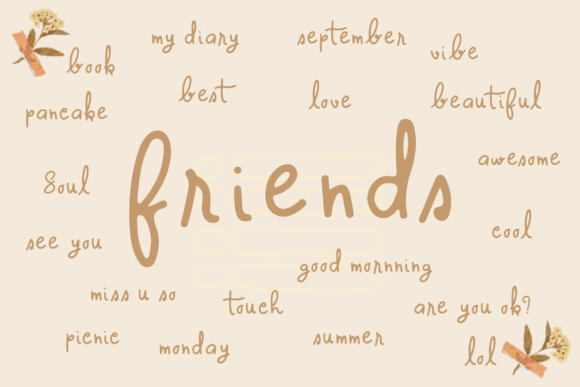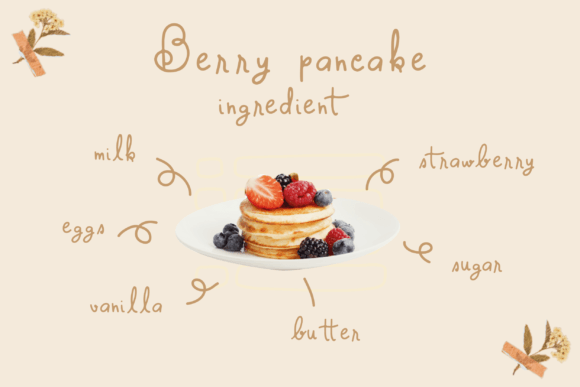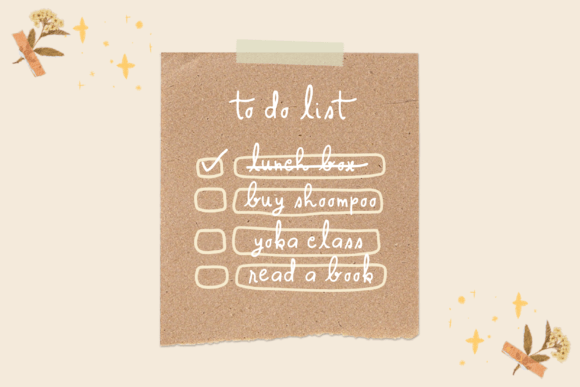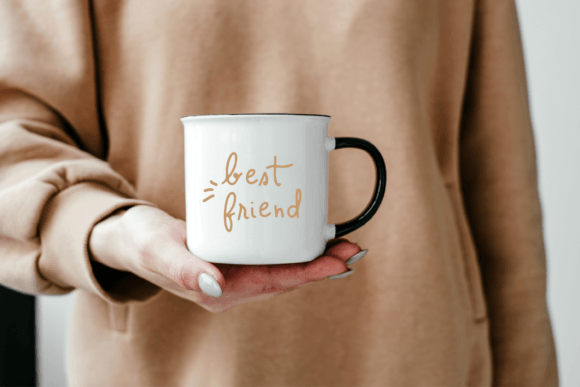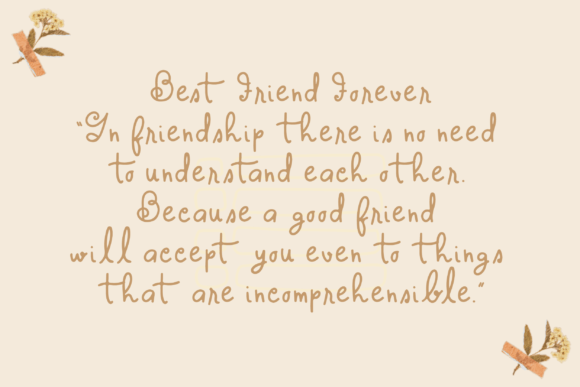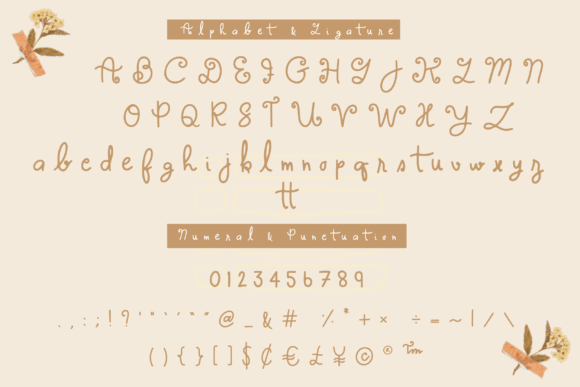
The Ultimate Guide to Friends Font: Adding a Touch of Warmth to Your Designs
I’ll never forget the time I was working on a project for a client’s children’s party invitations. I had all the design elements in place – the colors, the graphics, the overall aesthetic – but something was missing. The font I was using just wasn’t capturing the playful, friendly vibe I was going for. That’s when I stumbled upon the Friends font, and it was love at first sight! ✨
With its irregular letterforms, varied stroke widths, and playful designs, Friends font instantly evoked a sense of friendship and warmth. It was exactly what I needed to bring the party to life – and it’s been a staple in my design toolkit ever since.
An Honest Review of Friends Font
- ✨ Unique, handwritten style that’s perfect for creative projects
- ✅ Irregular letterforms and varied stroke widths add a touch of whimsy
- 🎉 Playful designs that capture the spirit of fun and friendship
- 💻 Works beautifully for both digital and print projects
While Friends font is an amazing addition to any design project, there are a few things to keep in mind: ⚠️
- 🤔 Some letters may be a bit tricky to read at smaller sizes – best used at larger sizes or for headlines
- ⚠️ Limited availability of special characters and glyphs (but still offers a range of OpenType features)
One of the best things about Friends font is its range of OpenType features, glyphs, and stylistic alternates. These allow you to customize your text and add even more personality to your designs:
- Access alternate characters, ligatures, and swashes to add flair
- Experiment with different stylistic sets to change the overall look
- Use glyphs to add icons, symbols, and other special characters
The Backstory of Friends Font
While the origins of Friends font are shrouded in mystery, it’s easy to imagine a designer creating this font with a group of friends in mind – laughing, brainstorming, and experimenting with letterforms until something magical happened. 💡
Perhaps the designer was inspired by the joy of handwritten notes, the imperfections of childhood scribbles, or the spontaneity of street art. Whatever the inspiration, Friends font captures the essence of friendship and fun in a way that’s hard to resist.
Q: What type of projects is Friends font best suited for?
A: Friends font is perfect for creative projects, crafts, and designs that require a playful, friendly touch – think party invitations, social media graphics, and branding for kids’ products.
Q: Is Friends font available in different weights or styles?
A: While Friends font may not have multiple weights or styles, its unique, handwritten style makes it a versatile choice for various design applications.
Q: Can I use Friends font for digital and print projects?
A: Absolutely! Friends font works beautifully for both digital and print projects – just be sure to adjust the size and color to suit your needs.